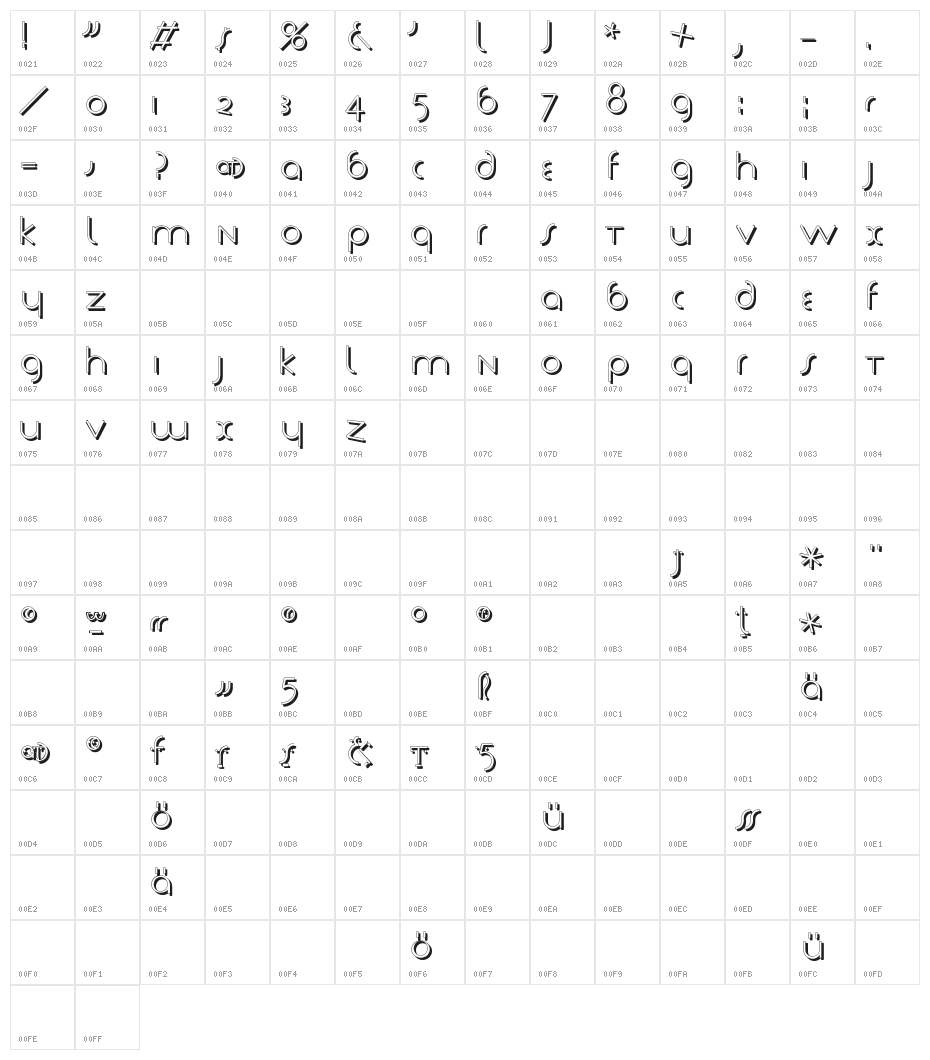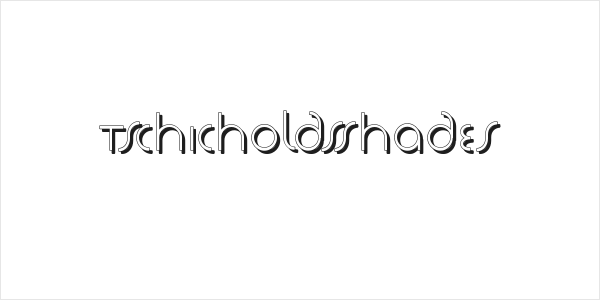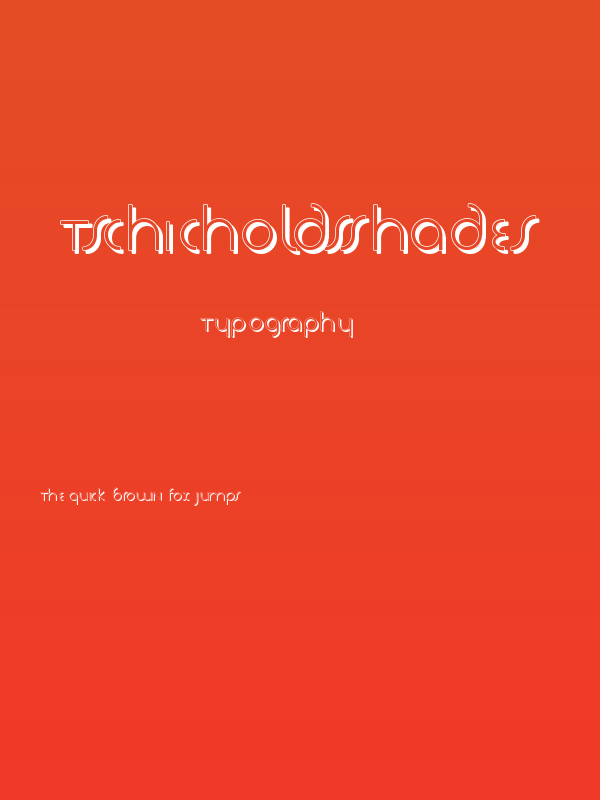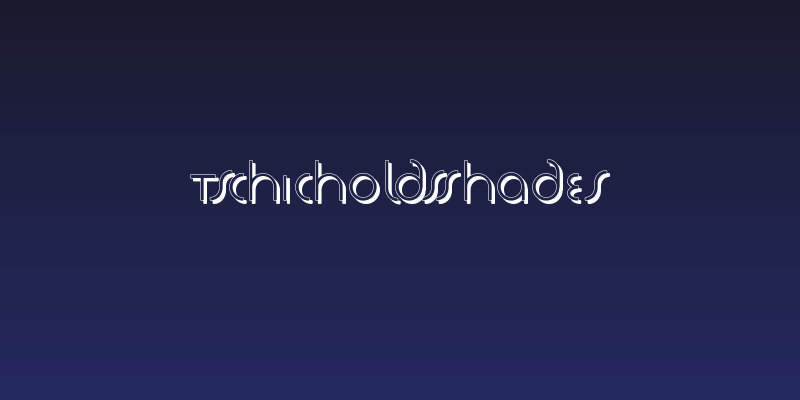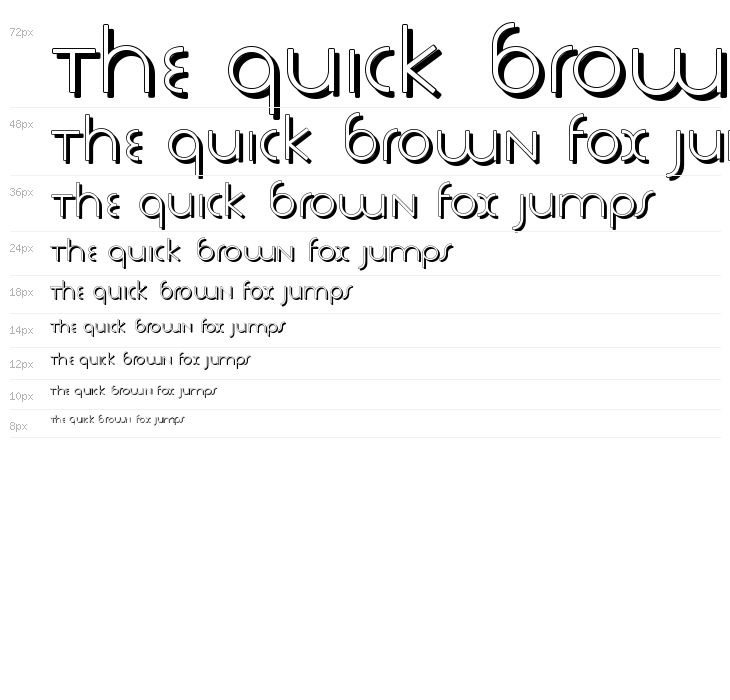
TschicholdsShades Font
TschicholdsShades Description
This font features a unique blend of modern and decorative elements, characterized by its bold, shadowed outlines that give a three-dimensional effect. The letters are rounded with a consistent stroke width, creating a harmonious and balanced appearance. The shadow effect adds depth and makes the characters stand out, making it ideal for eye-catching designs. The numerals and special characters maintain the same stylistic approach, ensuring uniformity across all glyphs. This font is perfect for projects that require a bold statement and a touch of creativity.
| Proposed Projects | Ideal for posters, logos, headlines, and any design needing a striking visual impact. |